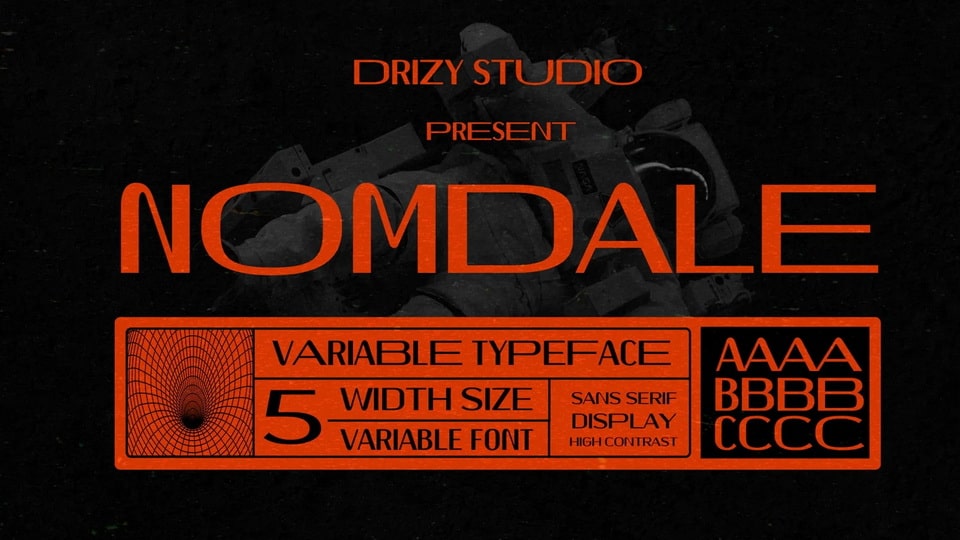
Feb 3, 2025DisplayNomdale Font Nomdale is a sans serif font that offers all the basic styles you will need for a futuristic project theme. Perfect for logos, posters, headlines as well as short length text blocks. Font DetailsDesigned by: Drizy FontWebsiteLicense: Free for personal use Download Nomdale FontFile size: 80.00 KBCreated: February 16, 2025Updated: February 16, 2025 Download Explore similar fonts Dreamscape Font Ariovex Font Saneoz Font Aigon Font Lightz Font Board of Directors Font # Contemporary# Futuristic# Modern# Strong# Wide More fonts by Drizy FontKreftin FontDotrix FontKitward FontHoldeim FontCetlopist FontRevob FontFreyca FontCazon Font